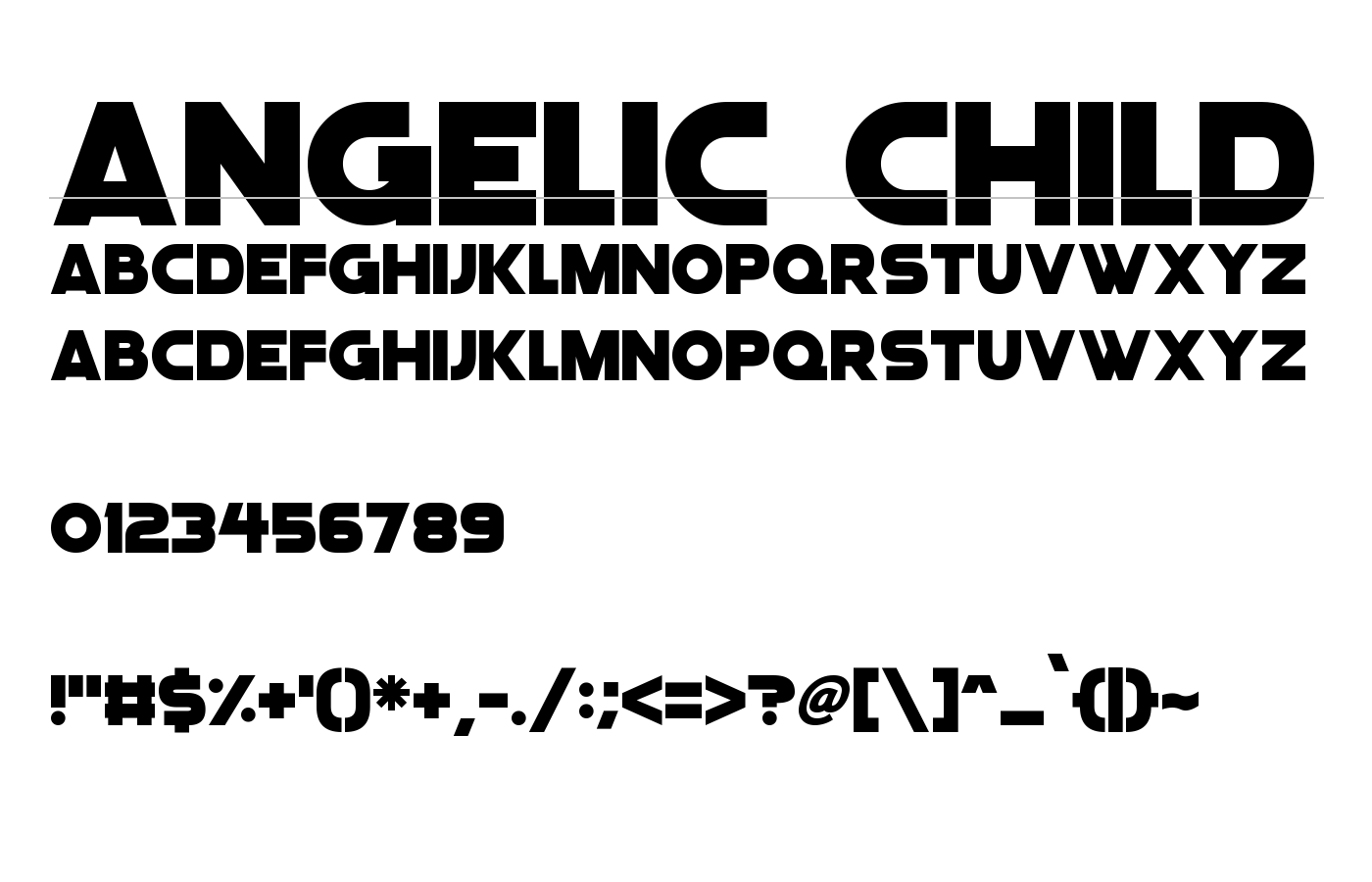
Angelic Child is a bold and geometric sans serif font with a strong, modern presence. Its wide and sturdy letterforms with minimal contrast give it a clean, confident feel, making it ideal for impactful headlines, logos, and branding that require a contemporary and powerful look. This font’s solid shapes and clear readability work well in both print and digital contexts where attention-grabbing typography is key.
Angelic Child Font